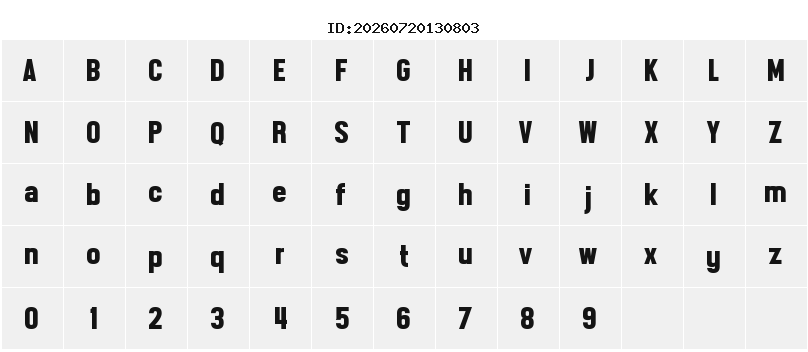
• Font Name: Front Page Neue
About Front Page Neue.otf
Front Page Neue.otf is a modern, elegant sans-serif font designed for ultimate readability and visual harmony. Perfect for branding, headlines, web design, and print materials.